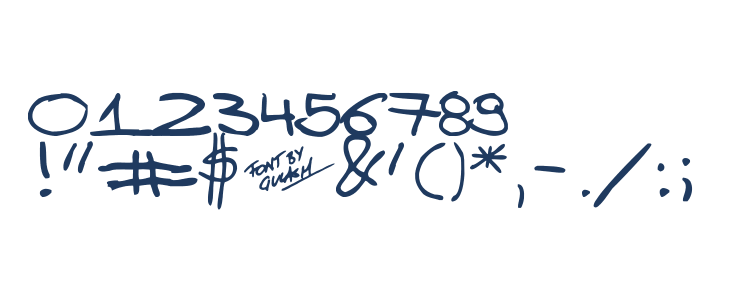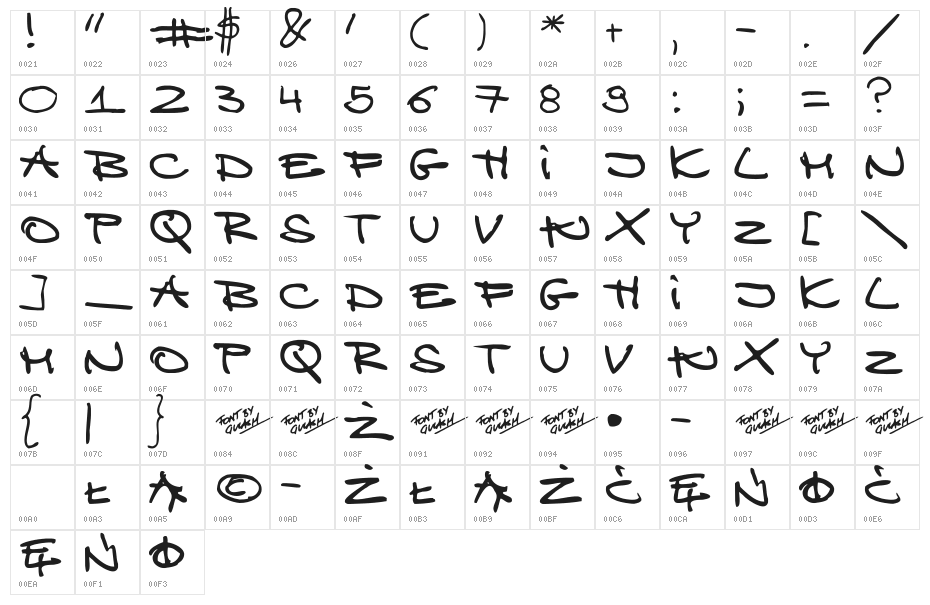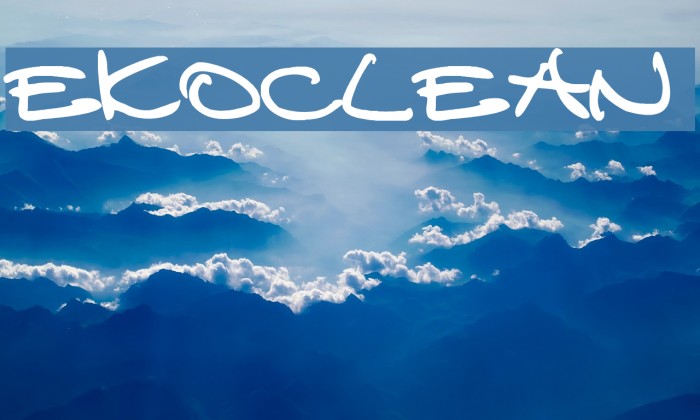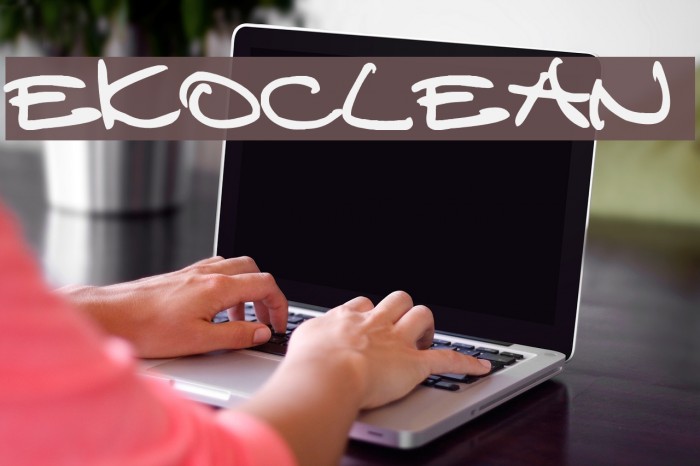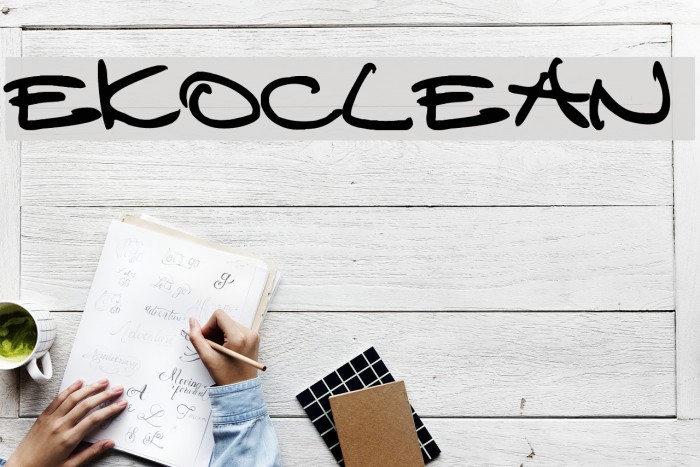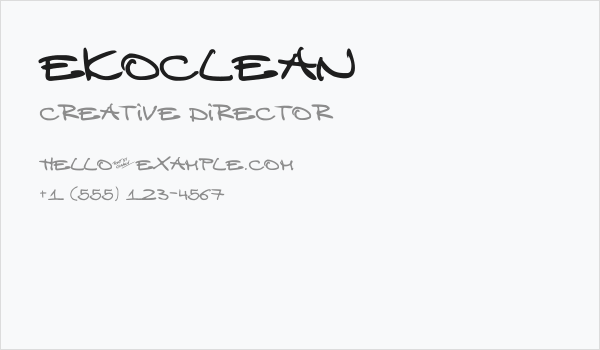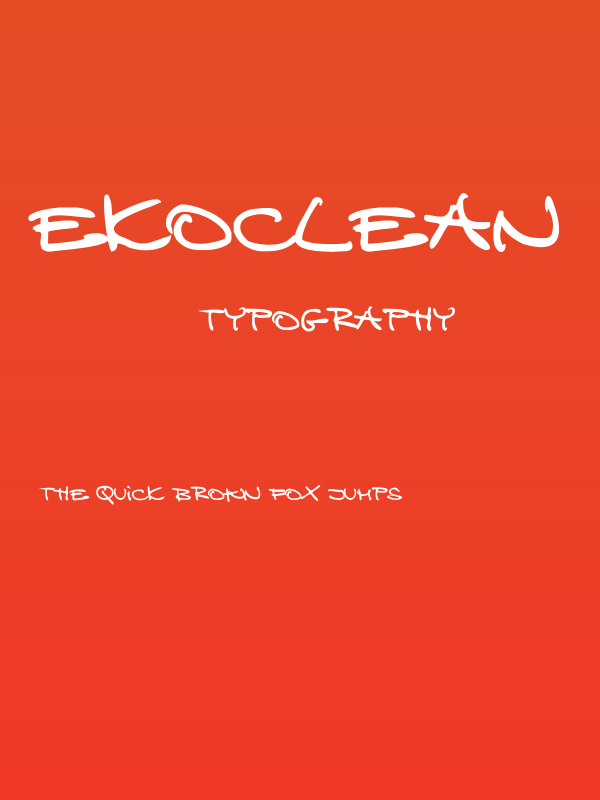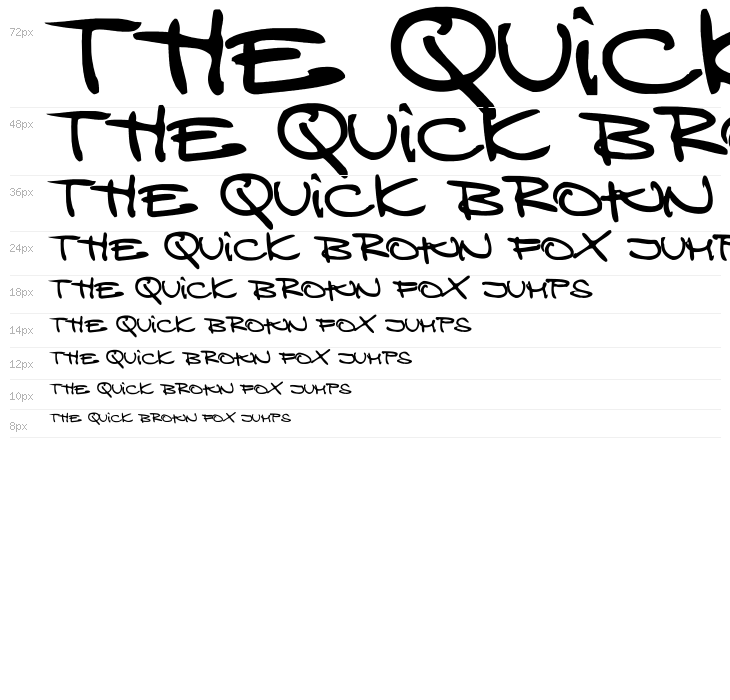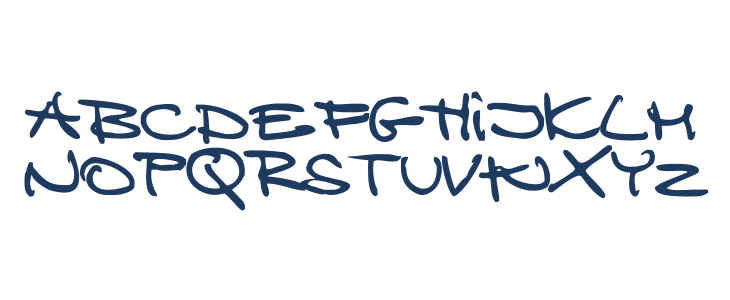
Ekoclean Font
Ekoclean Description
This font features a bold and dynamic handwritten style, characterized by its energetic and slightly chaotic appearance. The letters are crafted with a brush-like texture, giving them a casual and artistic feel. The uppercase and lowercase characters maintain a consistent flow, while the numbers and special characters complement the overall design with their expressive strokes. The font's unique personality makes it stand out, offering a playful yet edgy vibe that can add a creative touch to any project.
| Use Case | Logos, Posters, Creative Branding |
| Proposed Projects | Ideal for creative projects such as posters, album covers, branding for artistic ventures, and any design requiring a personal, handcrafted touch. |